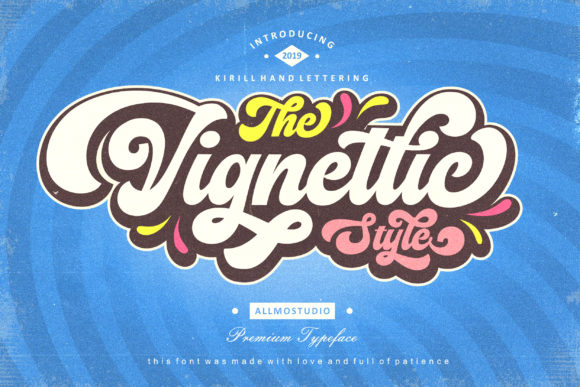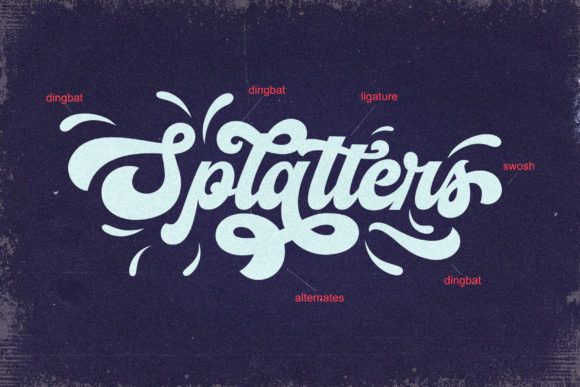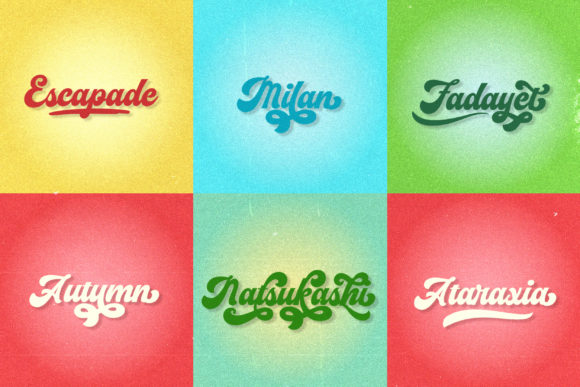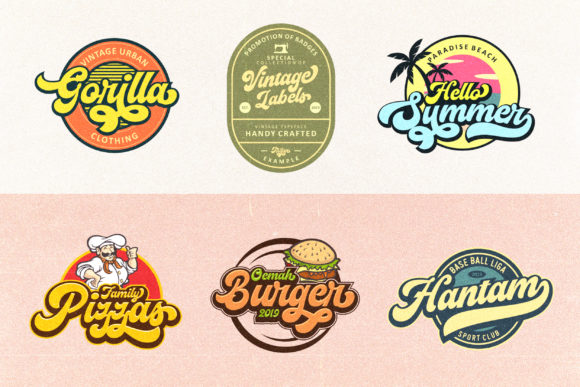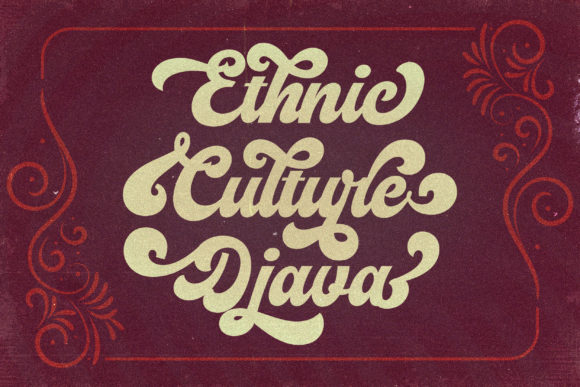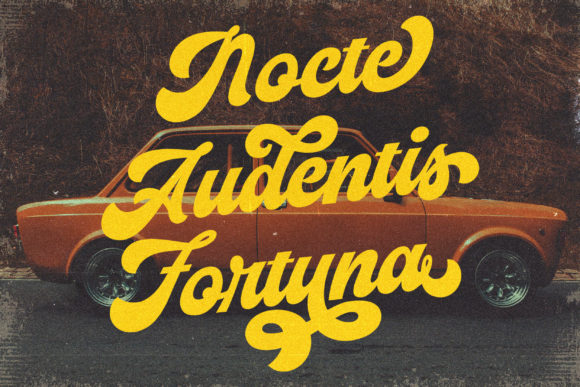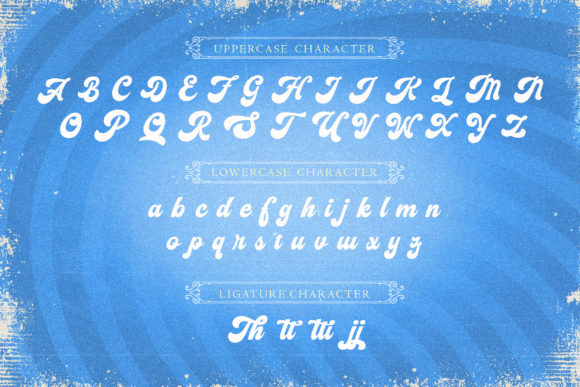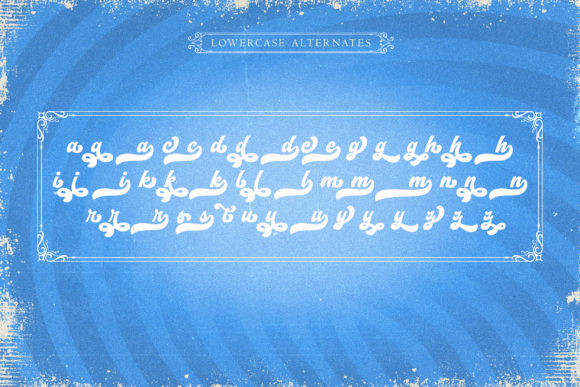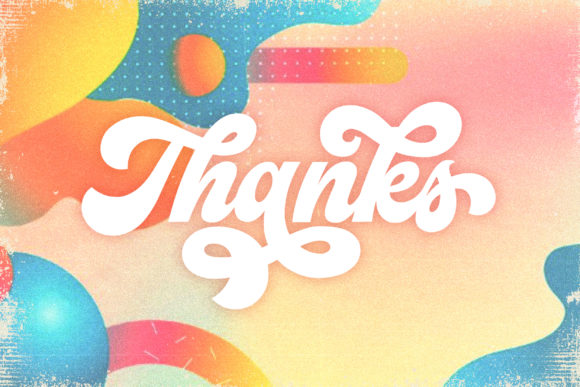
The Vignettic Font
About The Vignettic Font
The Vignettic is a great handwritten font. It has a playfully nostalgic feel and delivers an incredible vintage aesthetic. Use it to add that special retro touch to any design idea you can think of!
It will elevate a wide range of design projects to the highest level, be it branding, headings, wedding designs, invitations, signatures, logos, labels, and much more!